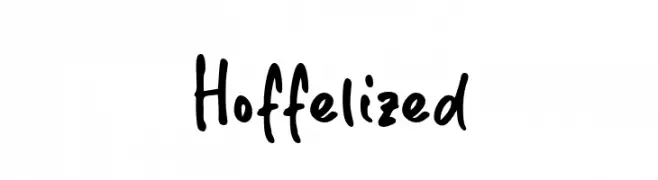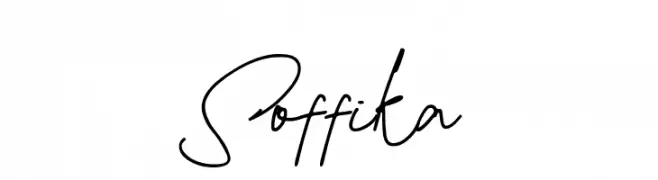
A playful, handwritten font with an organic and casual style.
A playful, hand-drawn script font with dynamic strokes and decorative flair.
A bold, distressed font with a vintage industrial stamp style.
A flowing, cursive handwritten font with dynamic strokes.
A bold, stencil-style font with high contrast and geometric shapes.
A playful, handwritten font with bold, organic strokes and a casual feel.
A playful, casual handwritten font with uneven strokes and an organic flow.
A graceful and elegant script font with fluid, cursive strokes.
A modern, condensed sans-serif font with uniform stroke width and geometric shapes.
A modern, condensed, and slightly italicized font with smooth curves.